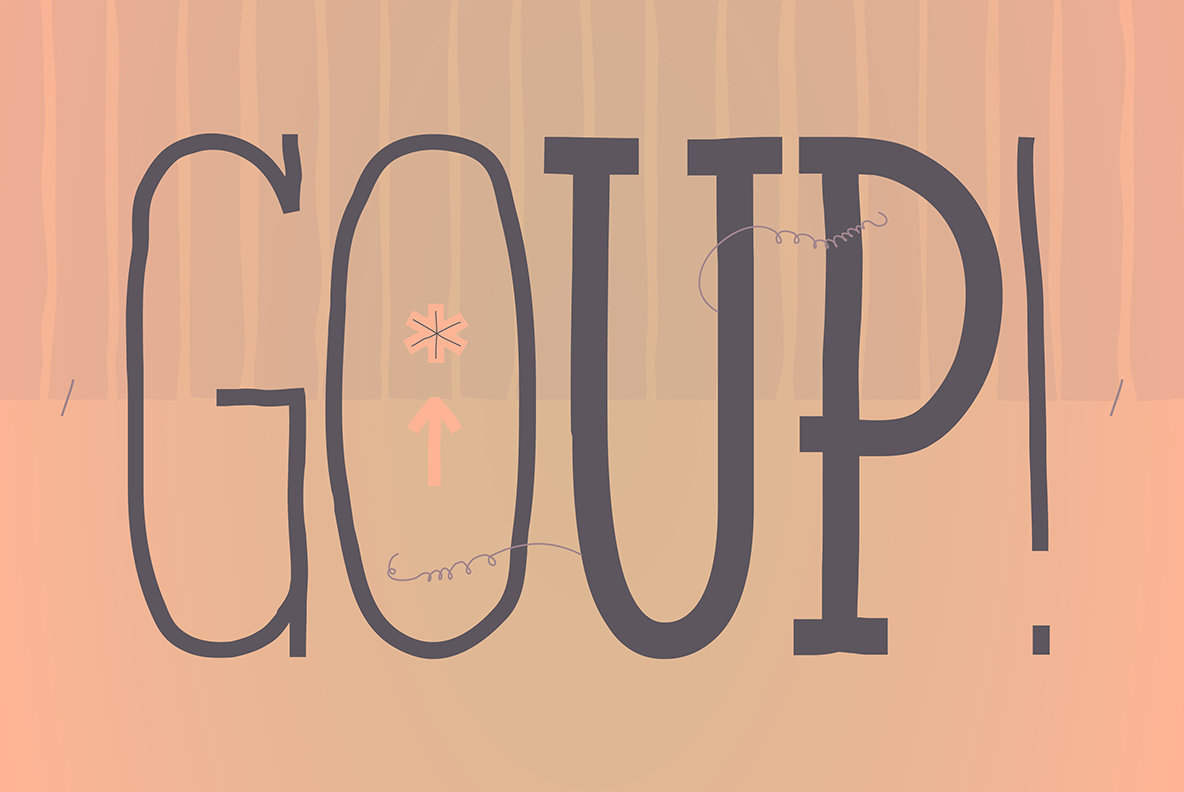
Enyo Slab Font
Enyo is a decorative, display, serif handwritten font. This font will provide an informal look to your work! It can be used for small ammount of text, and specially for display usage because of its glyph quality.
Enyo offers OpenType features, including ligatures, alternates, smallcaps, scientific superior/inferior figures, oldstyle figures, fractions, slashed zero, and kerning.
This handwritten font has a large glyph coverage, supporting at least 133 languages including English, Spanish, French, German, Italian, Portuguese, Swedish, Polish, Czech, Vietnamese, Russian, among many others. Enyo has also available the Cyrillic and Greek alphabets.